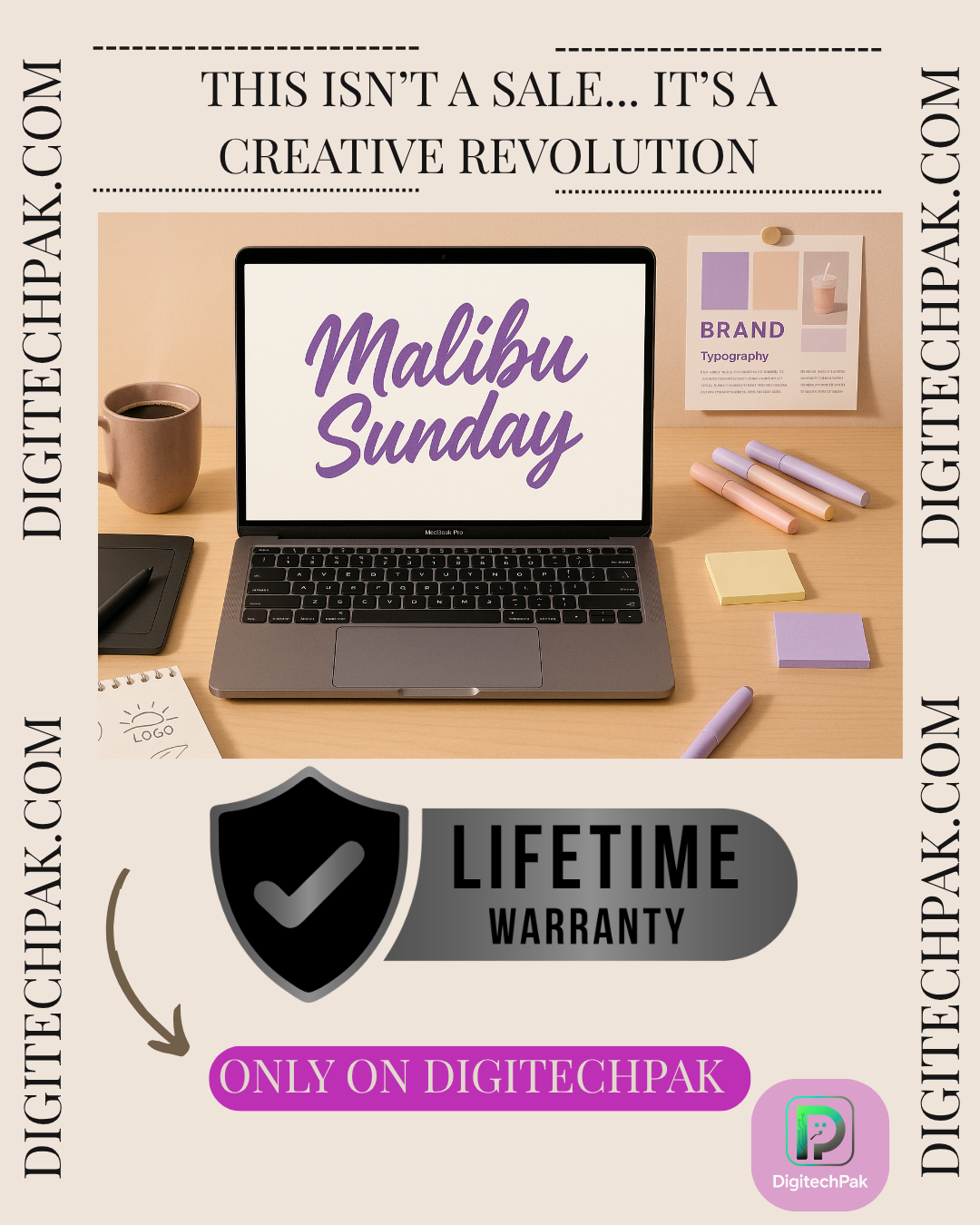
✨ Meet Malibu Sunday – Your New Favorite Font
If you’re a designer, creator, or business owner looking for a fun, fresh, and energetic script font, Malibu Sunday is your go-to choice. Whether it’s a YouTube thumbnail, Instagram post, logo, or t-shirt – this font gives your content a playful edge.
Multilingual support
Smooth script & alternate characters